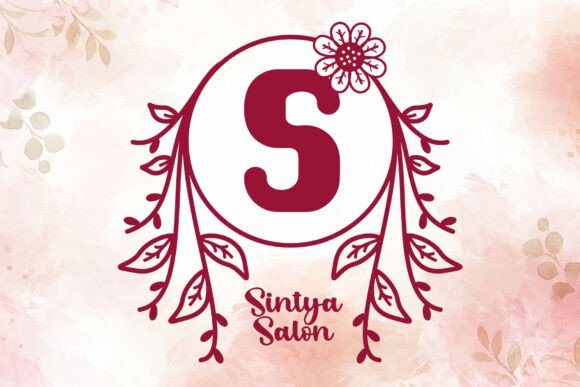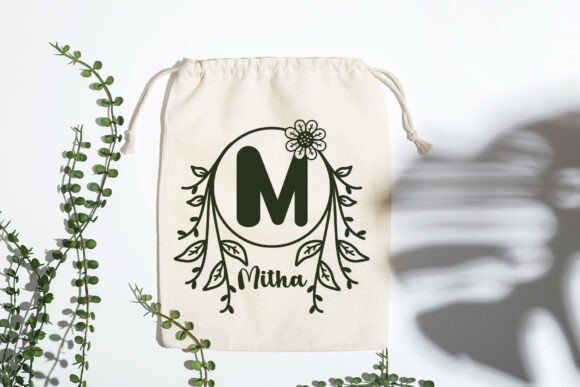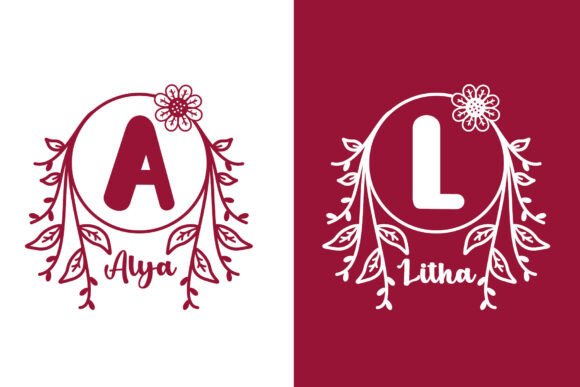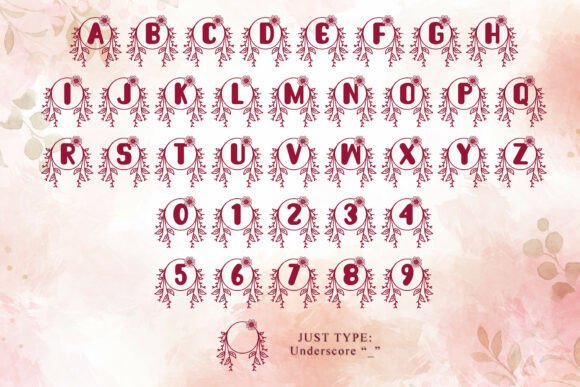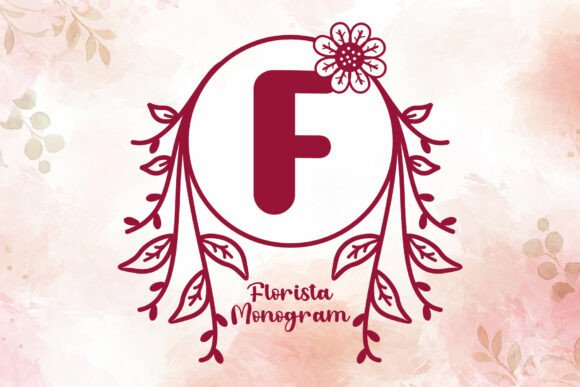
Introducing Florista Monogram Font: Elevate Your Designs with Elegance and Personalization
Are you a designer, crafty enthusiast, or business owner looking to add a touch of sophistication and personality to your creative projects? Look no further than the Florista Monogram Font, a stylish and versatile typeface designed to bring a sense of luxury and uniqueness to your brand, invitations, apparel, home décor, and digital designs.
What is Florista Monogram Font?
Florista Monogram Font is a beautifully crafted typeface that combines classic elegance with modern versatility. This font is specifically designed to help you create stunning monograms, logos, and personalized text that exudes refinement and poise. With its intricate details and flowing lines, Florista Monogram Font is perfect for those seeking to add a touch of timeless charm to their designs.
Key Features of Florista Monogram Font
- Stylish and Versatile: Florista Monogram Font boasts a unique and stylish design that can be used across various creative projects, from branding and invitations to apparel and digital designs.
- Personalized Touch: With its monogram style, this font allows you to create personalized and customized text that reflects your brand’s identity or individual style.
- Elegant and Timeless: The font’s classic design ensures that your creations will remain stylish and relevant for years to come, making it an excellent investment for designers and crafters.
- Flexible and Adaptable: Florista Monogram Font can be used in a variety of contexts, from formal and professional settings to more casual and creative endeavors.
Use Cases for Florista Monogram Font
Florista Monogram Font is an incredibly versatile typeface that can be used in a multitude of creative projects. Here are some inspiring use cases to get you started:
- Branding: Create a lasting impression with custom logos, business cards, and letterheads that showcase your brand’s personality and style.
- Invitations: Design stunning wedding invitations, event invites, and party decorations that exude elegance and sophistication.
- Apparel: Add a touch of luxury to your clothing, accessories, and textiles with custom monograms, labels, and patches.
- Home Décor: Personalize your home with custom wall art, stationery, and decorative items that reflect your unique style.
- Digital Designs: Use Florista Monogram Font in your digital creations, such as social media graphics, blog headers, and website elements, to add a touch of elegance and personality.
Tips for Getting the Most Out of Florista Monogram Font
To maximize the potential of Florista Monogram Font, consider the following tips:
- Experiment with Colors: Try pairing the font with different colors, textures, and patterns to create visually striking designs.
- Mix and Match: Combine Florista Monogram Font with other fonts and design elements to create unique and eye-catching compositions.
- Pay Attention to Details: Take the time to adjust font sizes, spacing, and alignment to ensure that your designs look polished and professional.
| Font Name | Florista Monogram Font |
| Author | Letterafa Studio |
Florista Monogram Font is a beautiful and versatile typeface that offers a world of creative possibilities for designers, crafters, and business owners. With its timeless charm, elegant design, and flexible use cases, this font is sure to become a staple in your design toolkit. Whether you’re looking to create stunning branding, invitations, apparel, home décor, or digital designs, Florista Monogram Font is the perfect choice for adding a personalized and sophisticated touch to your creative projects.